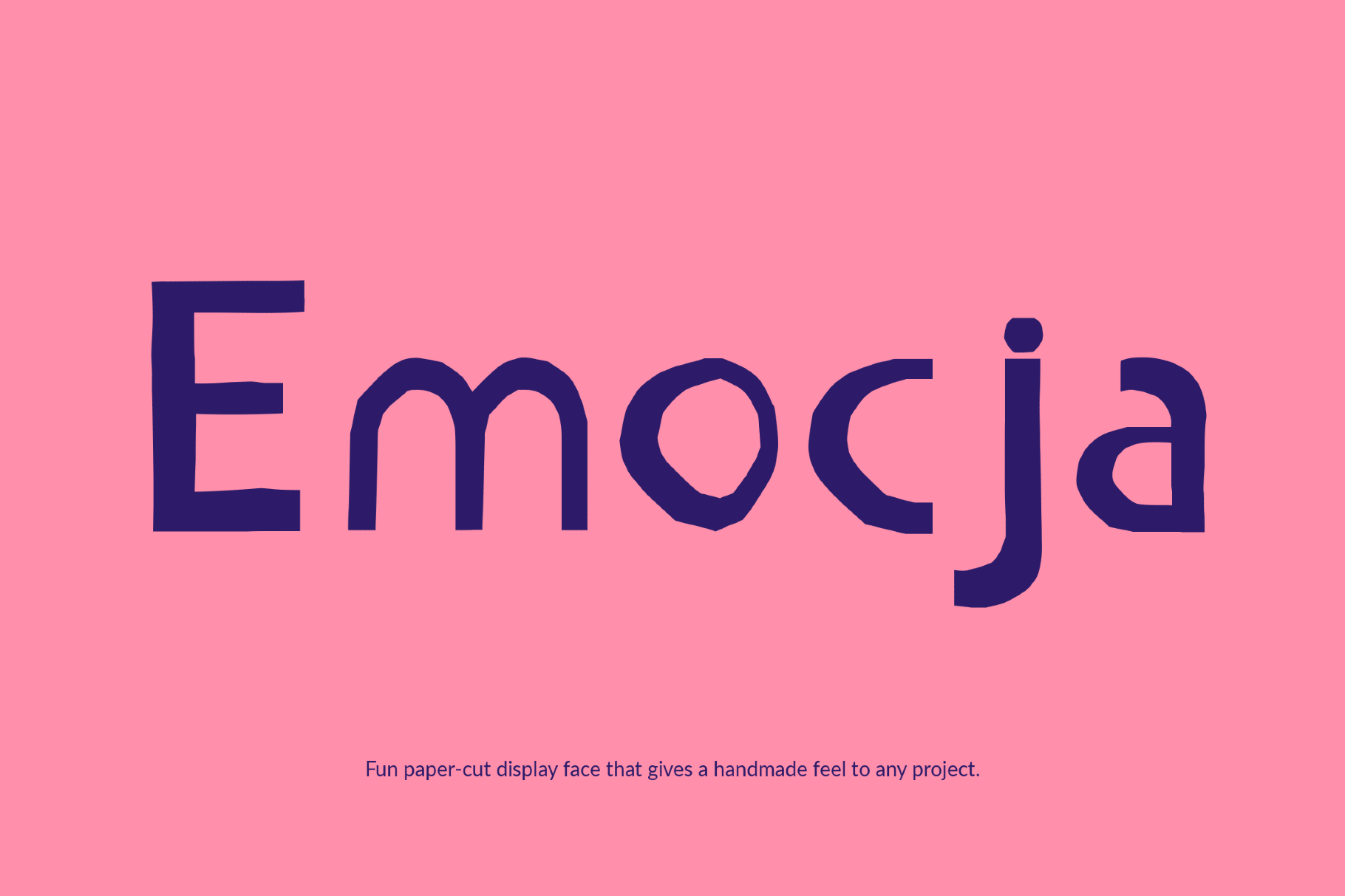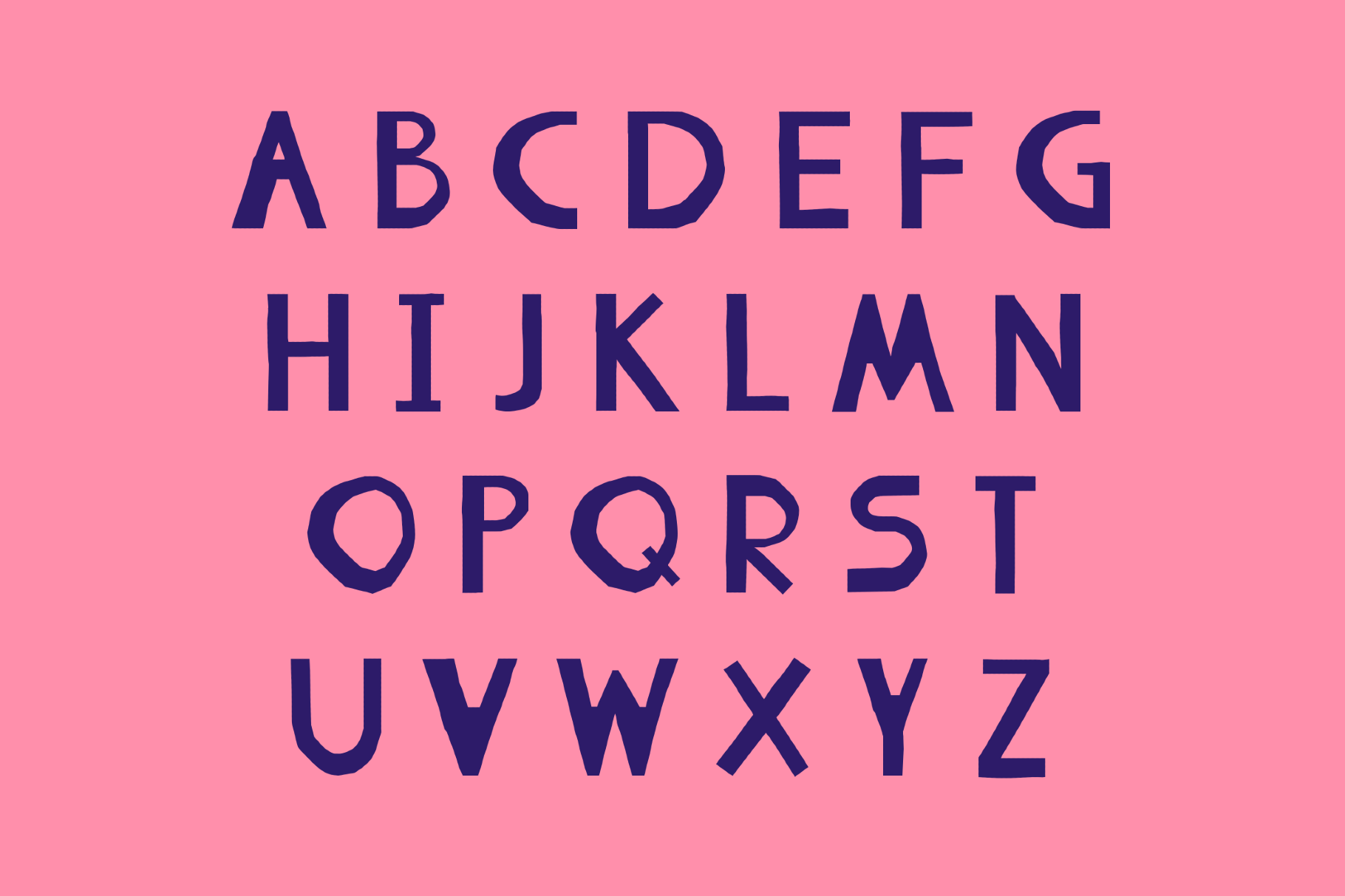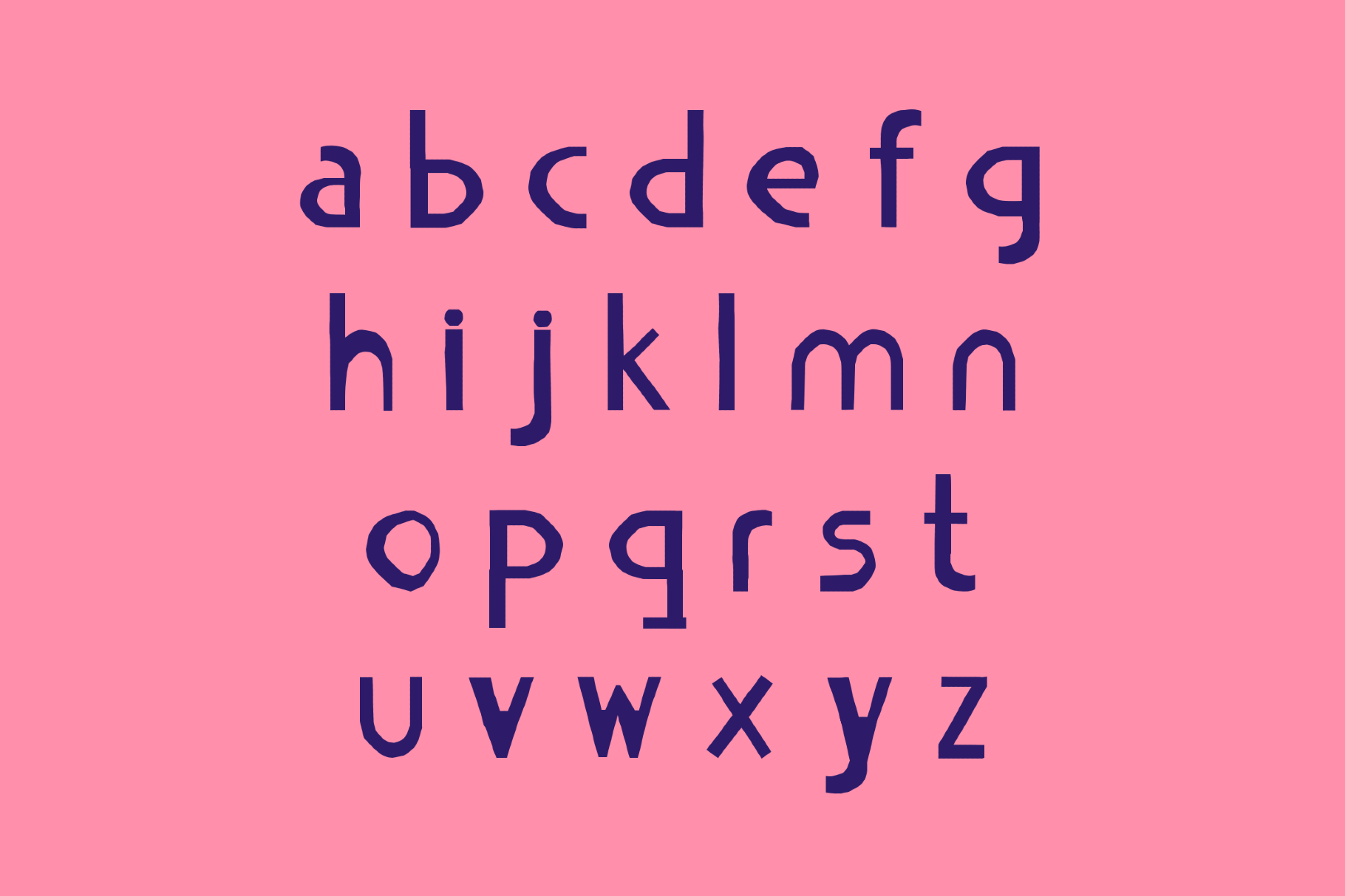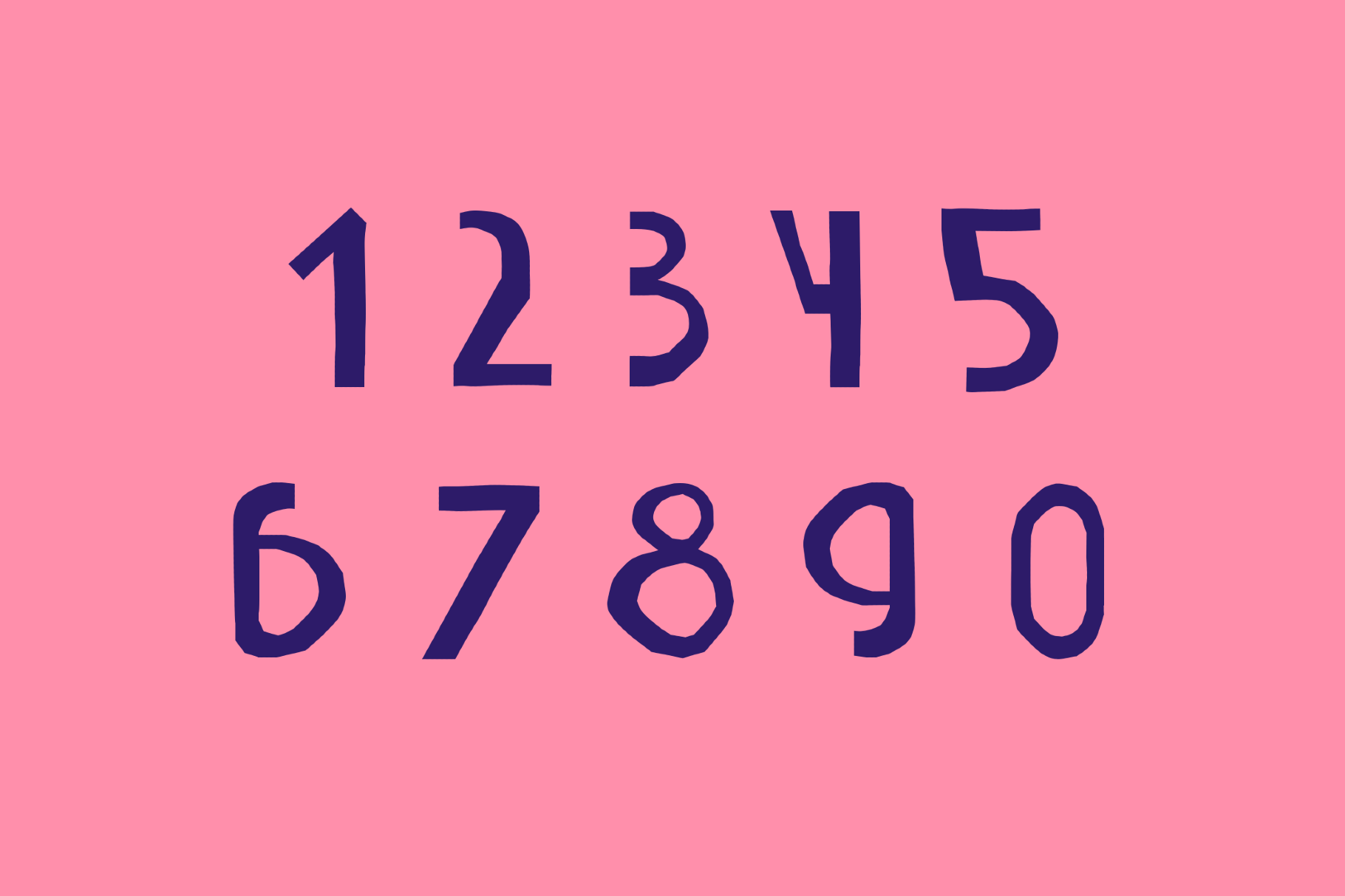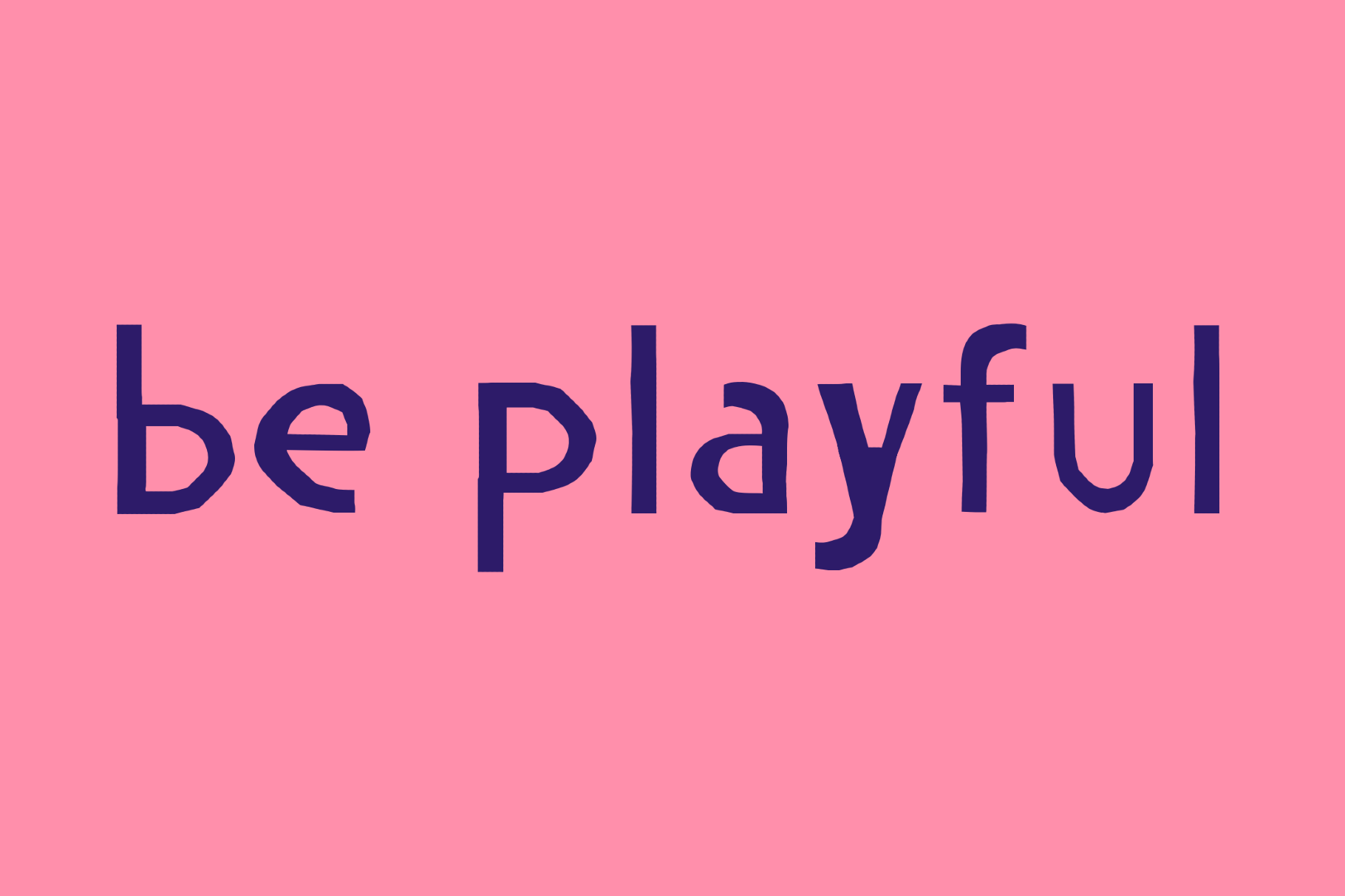
Emocja - Funny School Font
Emocja is a playful cut-paper school font with mismatched letterforms and a childlike rhythm. It recalls picture-book graphics, preschool wall art and the bright handmade charm of mid-century educational illustration. It is a great fit for children’s branding, poster titles, toy packaging, classroom materials, sticker designs, book covers and cheerful social graphics.